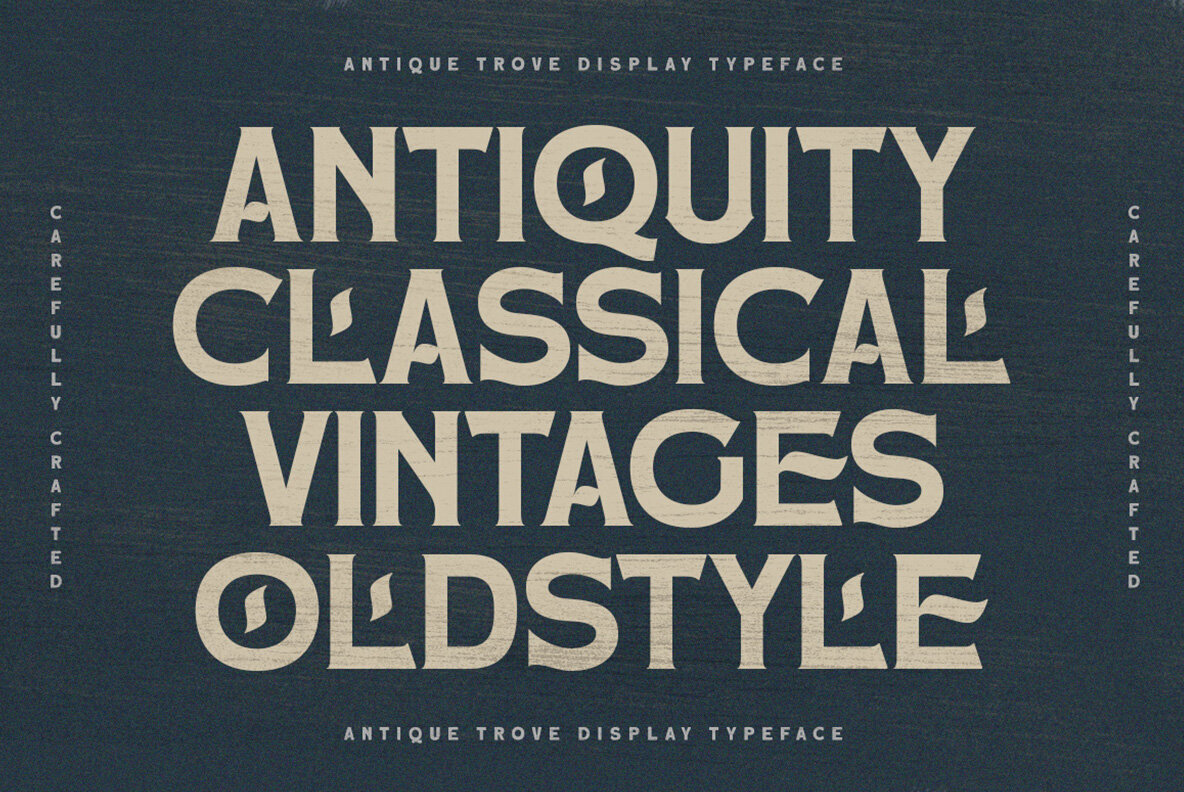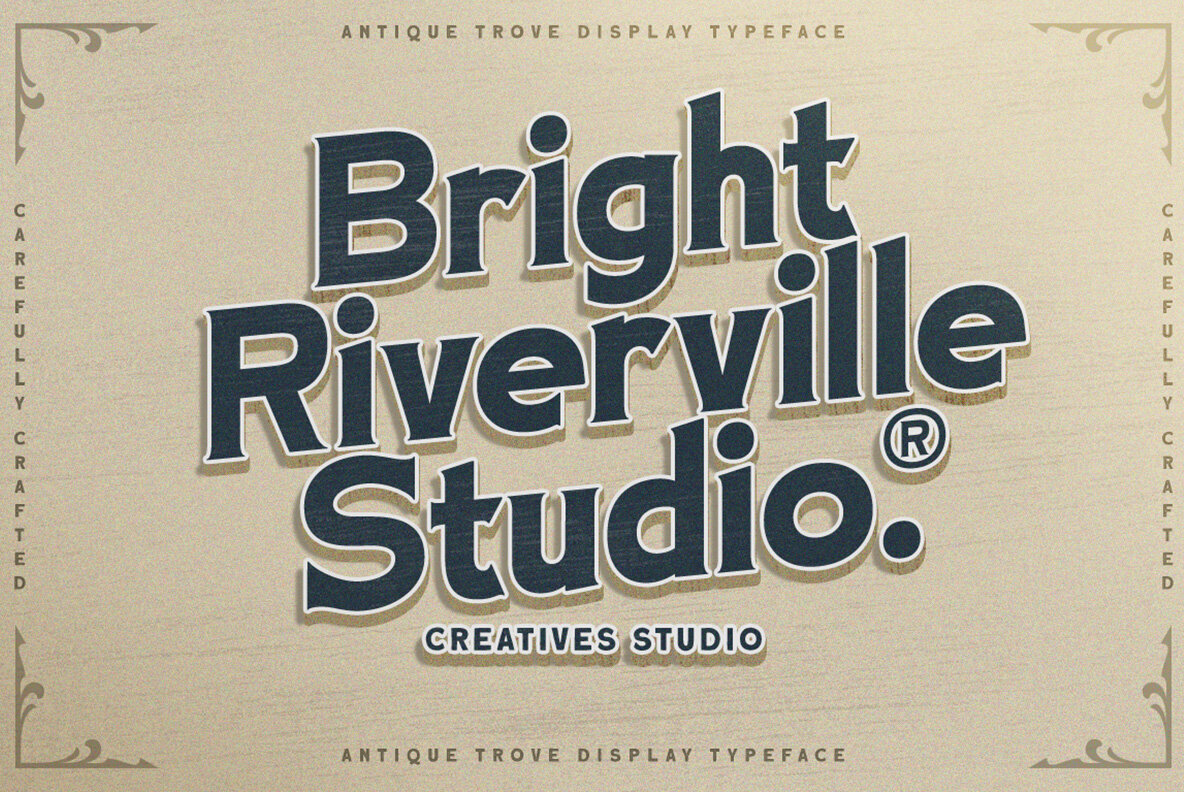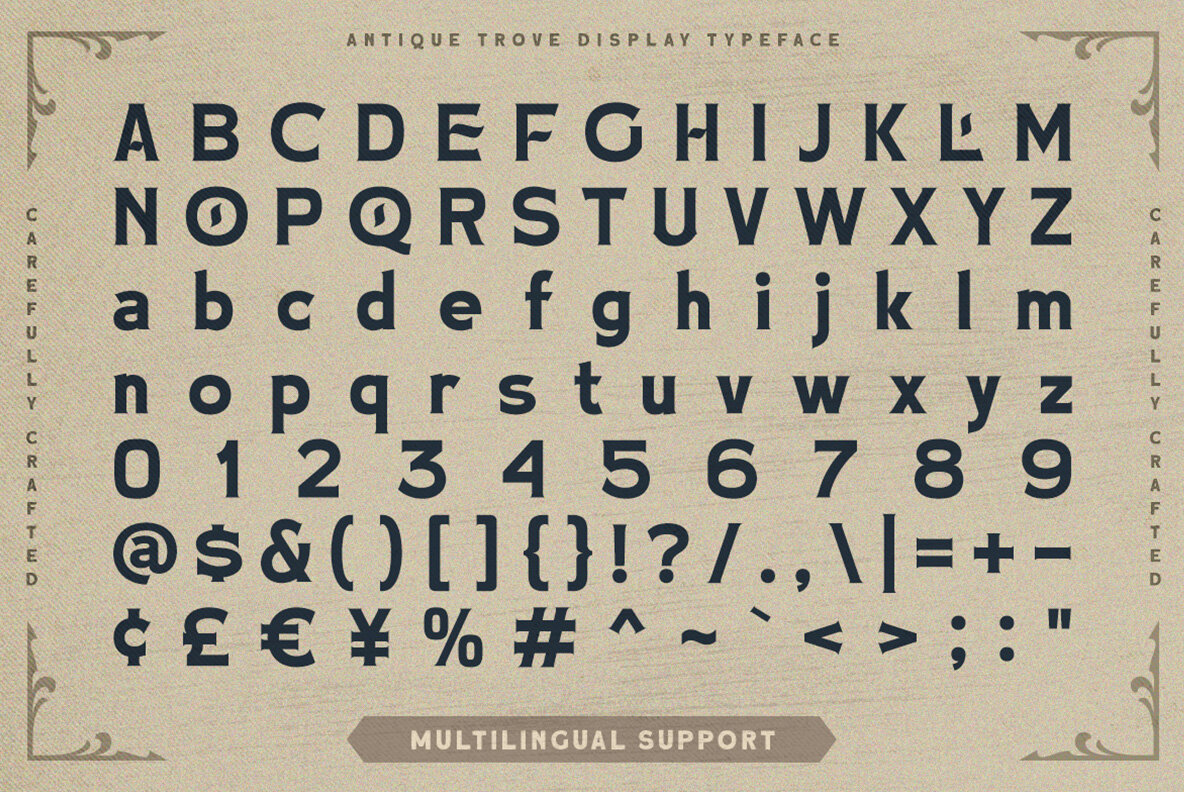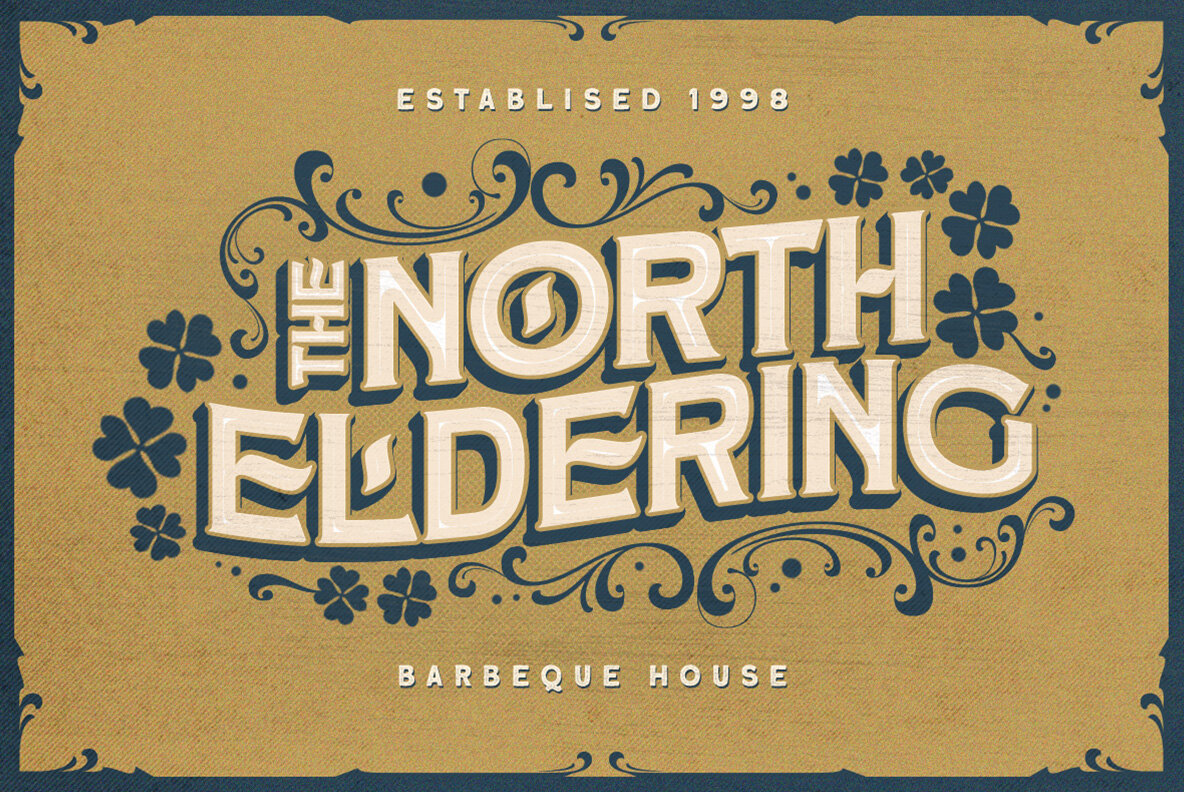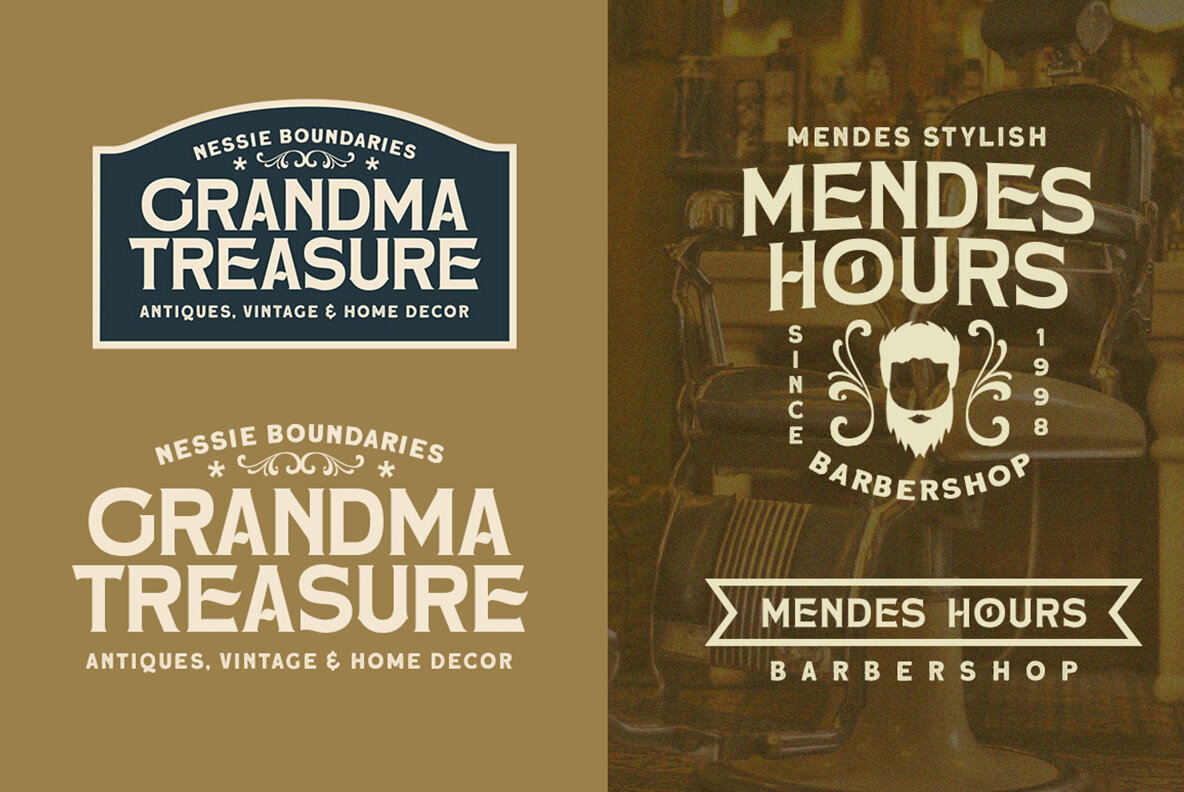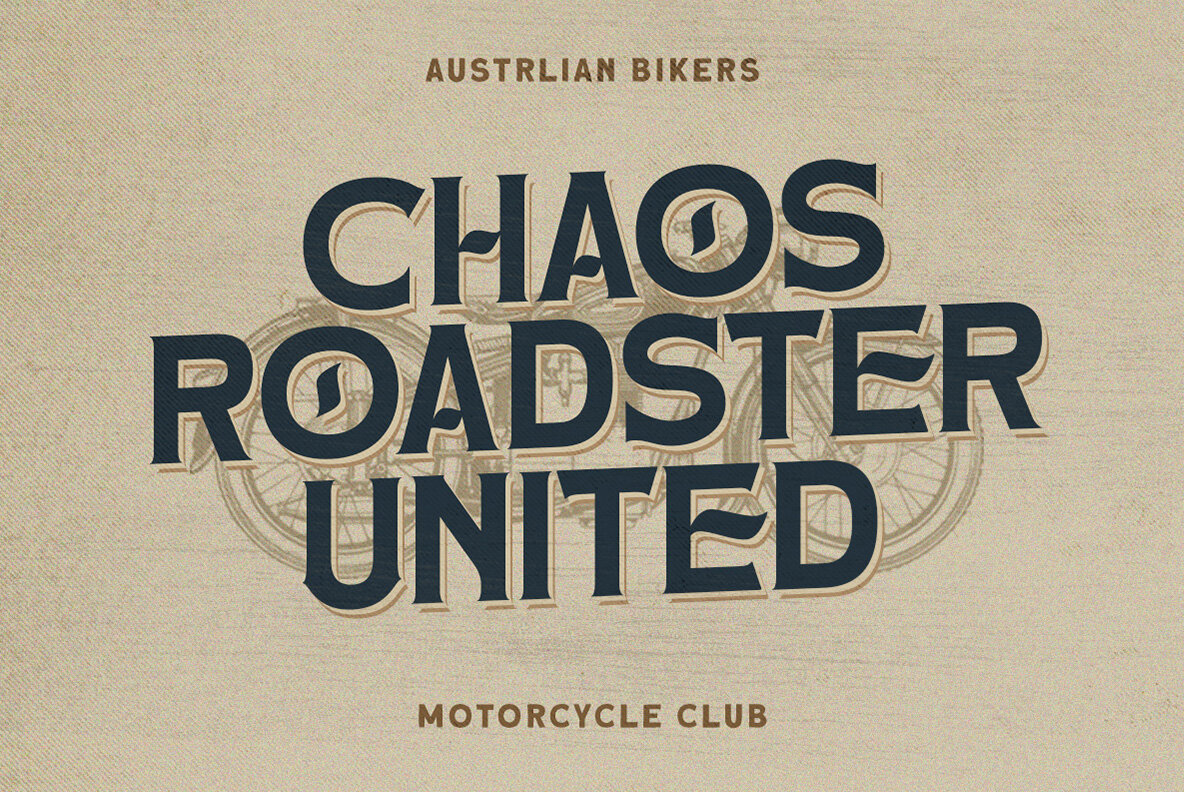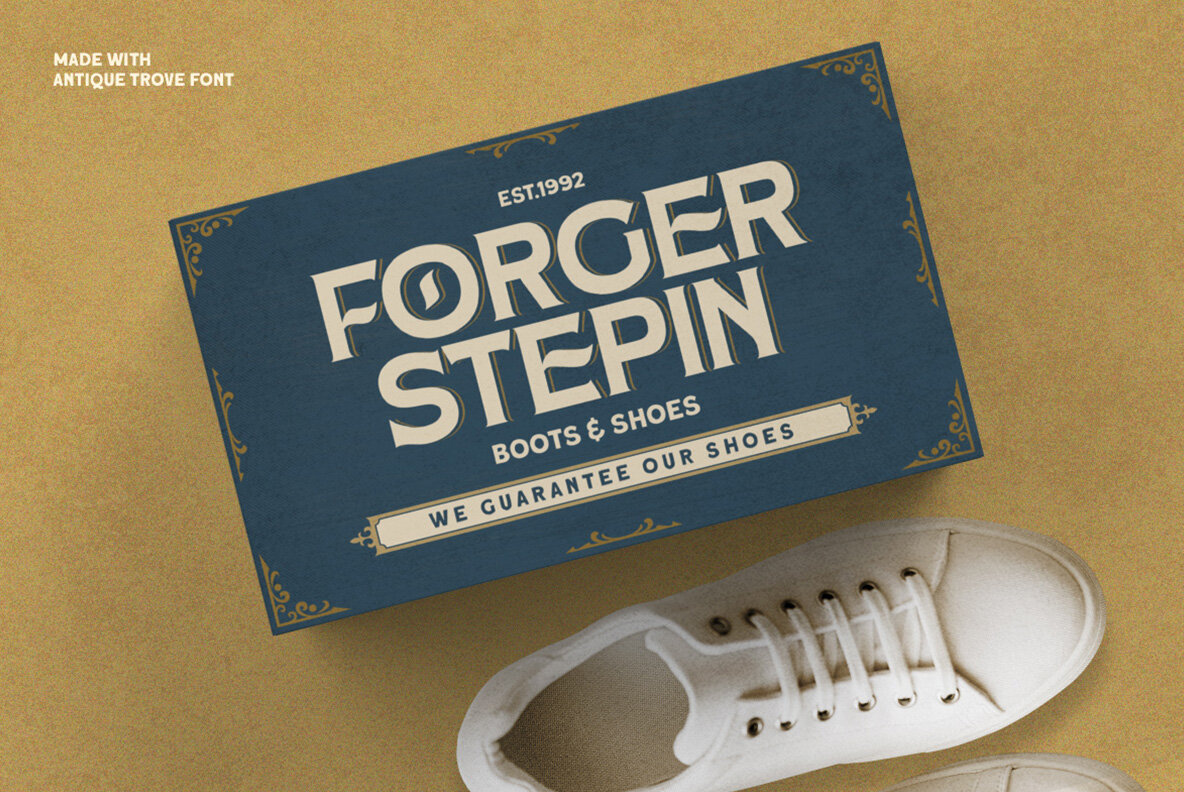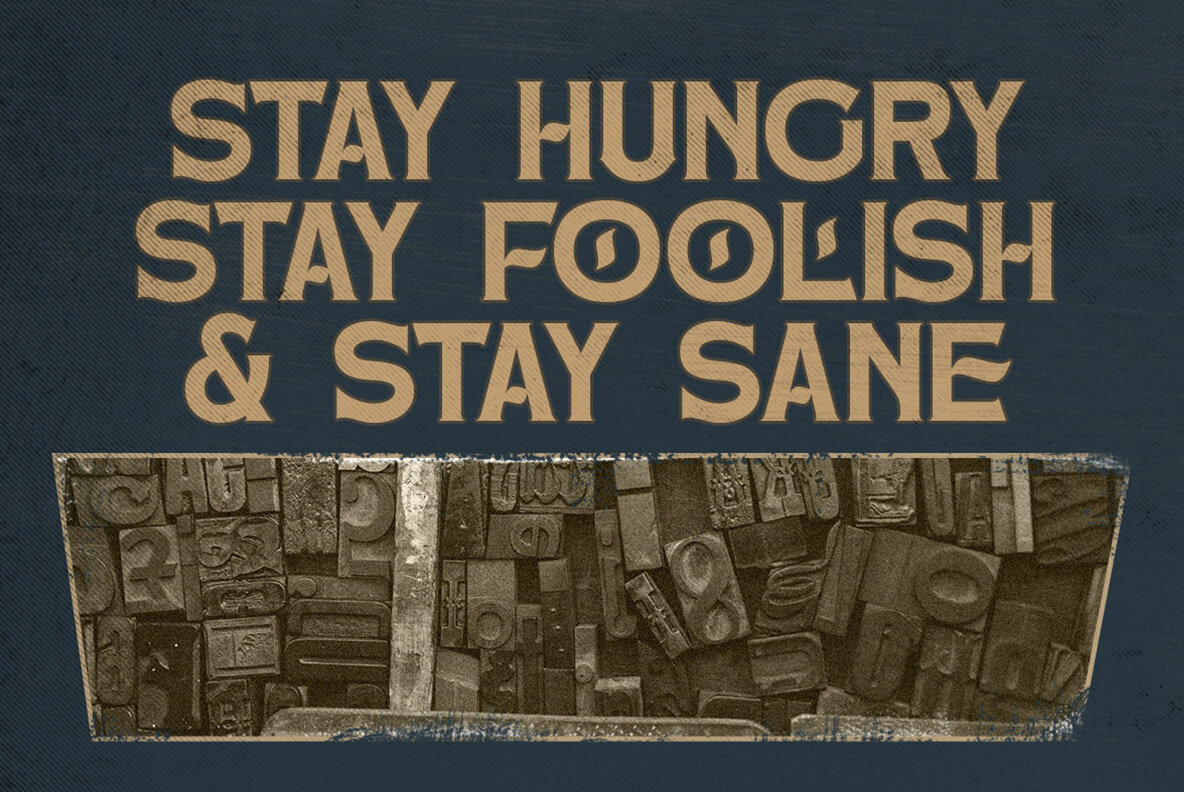
Antique Trove Font
Antique Trove Regular
Antique Trove stands as a quintessential display font, seamlessly merging the charm of antiquity with modern design sensibilities. Its versatility makes it an impeccable choice for projects requiring a standout typographic presence. Perfectly suited for formal compositions, it's ideal for crafting invitations, labels, logos, magazines, books, wedding cards, and more.Antique Trove: Classic Display Font for Distinctive Designs
Notable Features